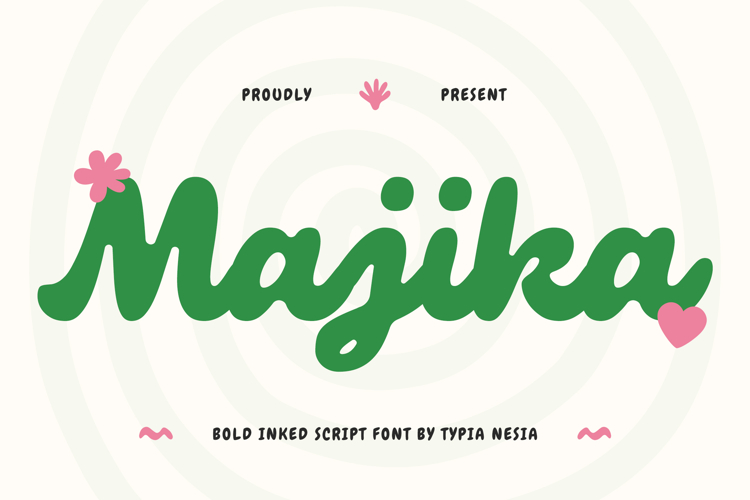
Majika - Bold Retro Brush Lettering Script
Majika - Bold Retro Brush Lettering Script - Nostagilc & Playful Handwritten Display Font
Majika is a bold retro brush lettering script font inspired by nostalgic charm and sweet 80s vibes. With its cute, playful handwritten style, Majika delivers a fun, friendly, and warm personality that instantly grabs attention. This font is perfect for logos, café and coffee shop branding, bakery and cake packaging, sweet food labels, retro designs, and cheerful visual projects that need a cozy and joyful touch. With its bold script strokes and smooth flow, Majika brings a nostalgic yet fresh look to packaging, posters, merchandise, and creative branding that celebrates fun, creativity, and charm.